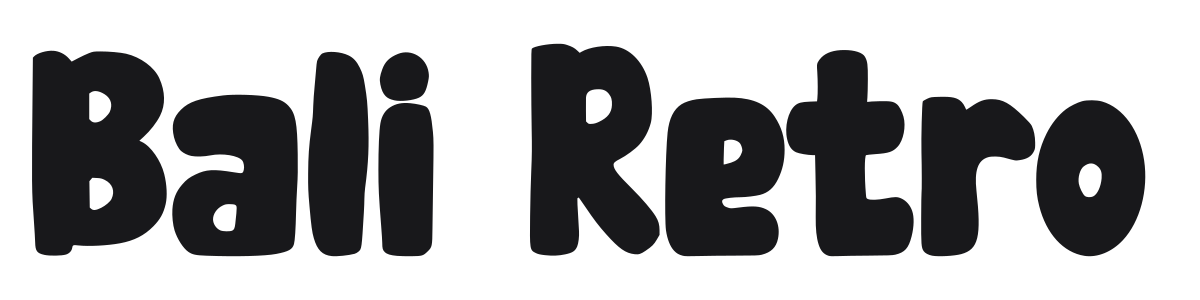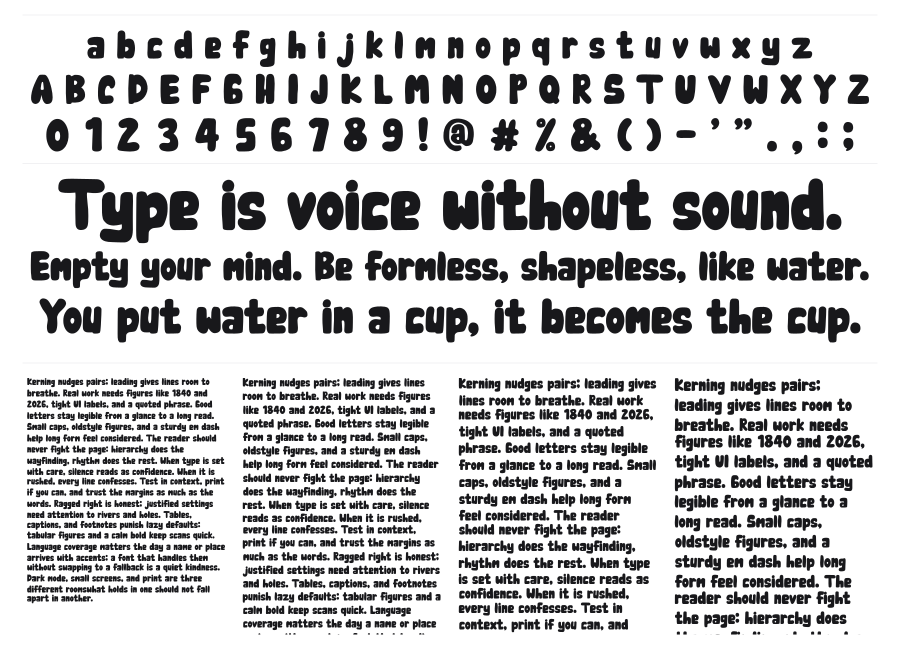
Bali Retro
Bali Retro is a heavy, bubbly rounded sans with bold chunky forms and soft inflated terminals drawn from 1970s retro aesthetics. Every character feels thick and approachable, with consistent low-contrast strokes and wide proportions that command attention at large sizes. It brings a warm, nostalgic energy suited to branding, posters, and anything that needs a retro-playful personality.